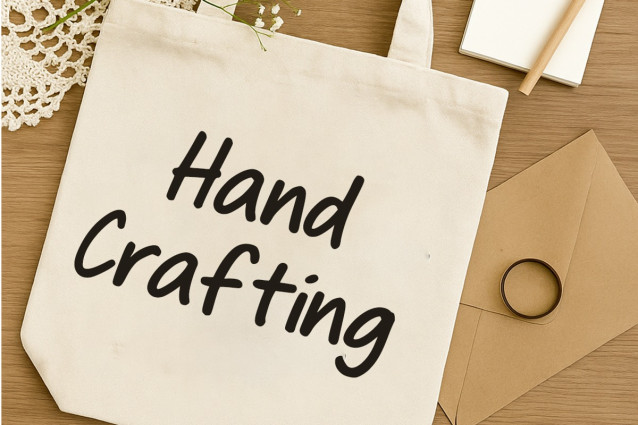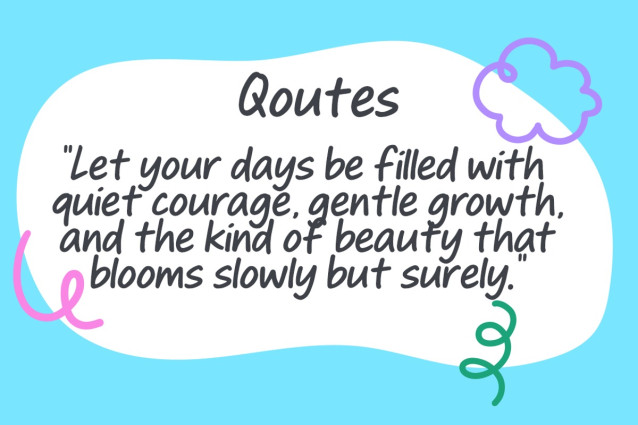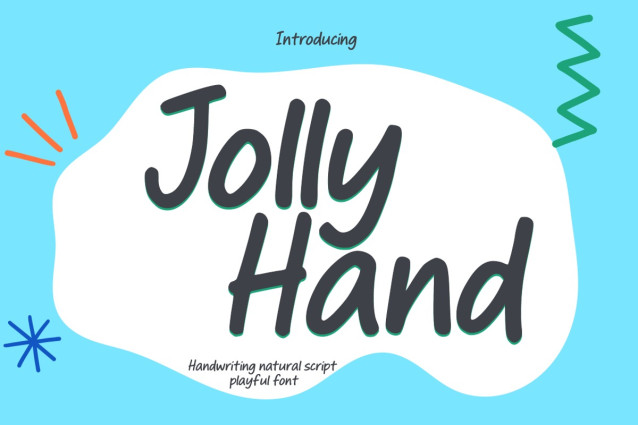
Jolly Hand Font
Jolly Hand Font is a playful handwritten script font with a natural and casual brush style. Designed with bold, rounded strokes, it offers a cheerful and approachable look suitable for various creative applications.